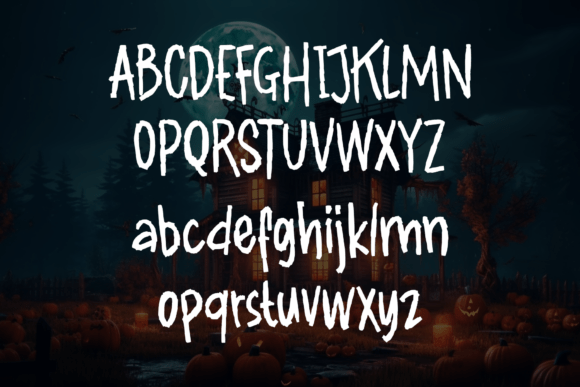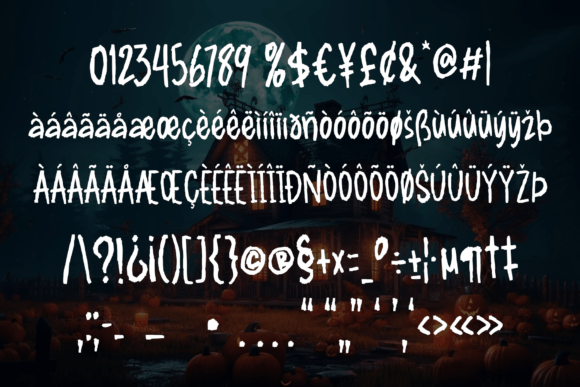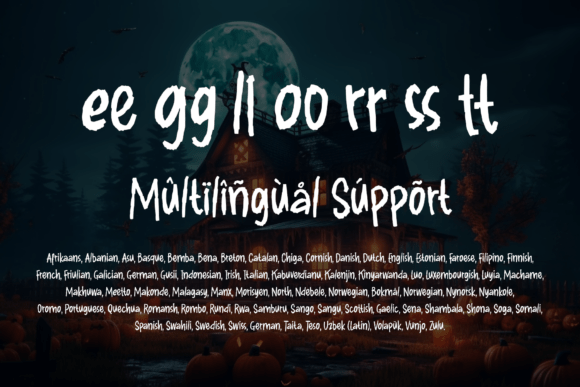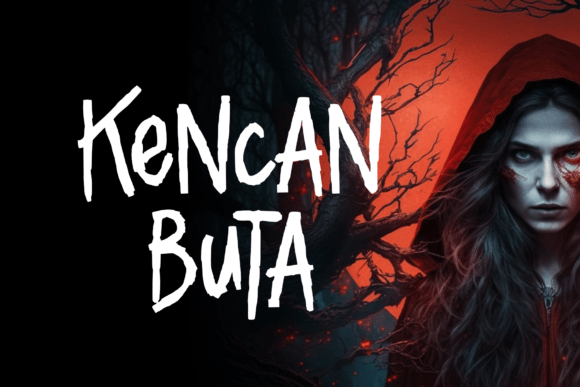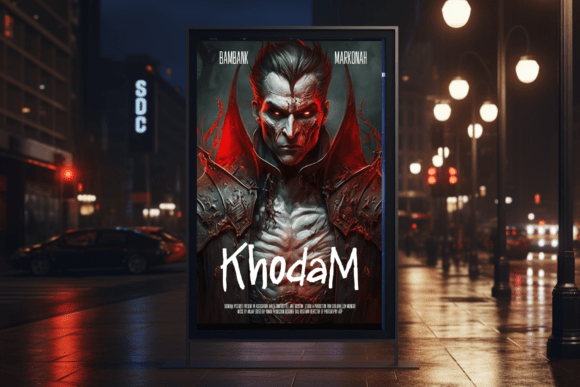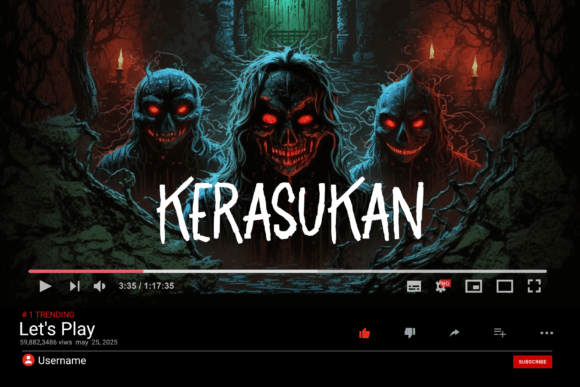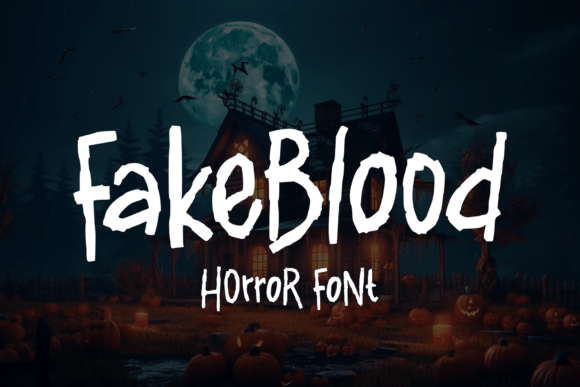
Unleash the Horror: Exploring the Unique Characteristics of Fakeblood Font
As a designer or crafter, you’re constantly on the lookout for innovative and captivating fonts to elevate your creative projects. If you’re seeking a font that embodies the essence of horror and eeriness, look no further than Fakeblood. This intriguing font has been gaining popularity among designers, and for good reason. In this article, we’ll dive into the unique characteristics of Fakeblood and explore why it’s an exceptional choice for designs requiring a haunting yet simple touch.
The Simplicity and Rough Texture of Fakeblood
Fakeblood font masterfully combines simplicity with a random, rough texture, creating a mysterious impression that makes the design look stunning. The font’s simplicity ensures that it’s easy to read and understand, while the rough texture adds a layer of complexity and eeriness. This unique blend of characteristics makes Fakeblood an ideal choice for designers who want to instill an eerie atmosphere in their designs.
Key Features of Fakeblood Font
Fakeblood comes with a range of features that make it an attractive option for designers. Some of the key features include:
- Standard Glyphs: Fakeblood includes a comprehensive set of standard glyphs, allowing designers to create a wide range of designs.
- Ligature: The font features ligatures, which enable designers to create more complex and visually appealing designs.
- Multilingual Accent: The font supports a wide range of languages, including Afrikaans, Albanian, Asu, Basque, Bemba, Bena, Breton, Catalan, Chiga, Cornish, Danish, Dutch, English, Estonian, Faroese, Filipino, Finnish, French, Friulian, Galician, German, Gusii, Indonesian, Irish, Italian, Kabuverdianu, Kalenjin, Kinyarwanda, Luo, Luxembourgish, Luyia, Machame, Makhuwa, Meetto, Makonde, Malagasy, Manx, Morisyen, North, Ndebele, and Norw.
Why Choose Fakeblood for Your Designs?
So, why should you choose Fakeblood for your designs? Here are just a few reasons:
- Eerie yet Simple: Fakeblood provides an opportunity for designers to create stunning designs with a simple yet effective horror touch.
- Versatile: The font is suitable for a wide range of design projects, from horror-themed designs to more subtle, eerie atmospheres.
Tips for Using Fakeblood in Your Designs
To get the most out of Fakeblood, here are a few tips:
- Experiment with Different Sizes: Fakeblood looks great in a variety of sizes, from small text to large headings.
- Combine with Other Fonts: Try pairing Fakeblood with other fonts to create a unique and visually appealing design.
- Play with Color: Fakeblood looks great in a range of colors, from bold and bright to subtle and muted.
Fakeblood font is an exceptional choice for designers seeking to create eerie yet simple designs. With its unique blend of simplicity and rough texture, Fakeblood is sure to elevate your creative projects. Whether you’re working on a horror-themed design or simply want to add a touch of eeriness to your work, Fakeblood is an excellent option. With its range of features, including OTF/TTF formats, standard glyphs, ligatures, and multilingual support, Fakeblood is a versatile and practical choice for designers of all skill levels.